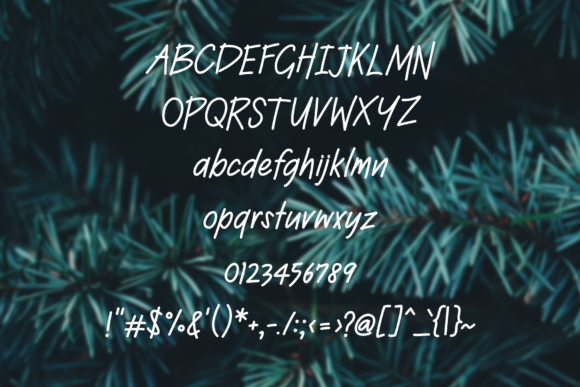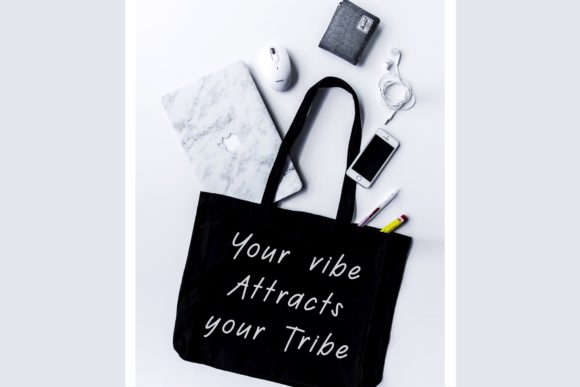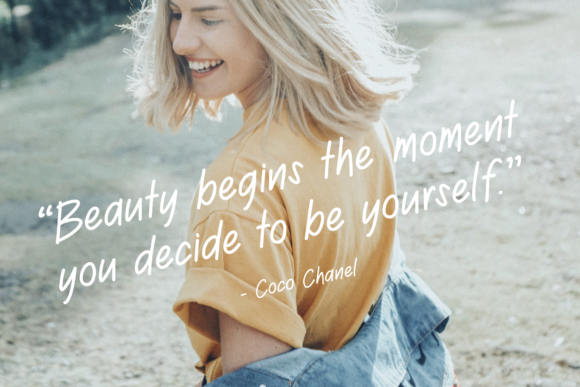
About Twelve Month Font
Twelve Month is a simple lettered, italic handwritten font. You can use this font in various projects and in any designs, be it blog posts, logos, branding, ads, invitations, greeting cards, planners, photo albums, decorations and much more.